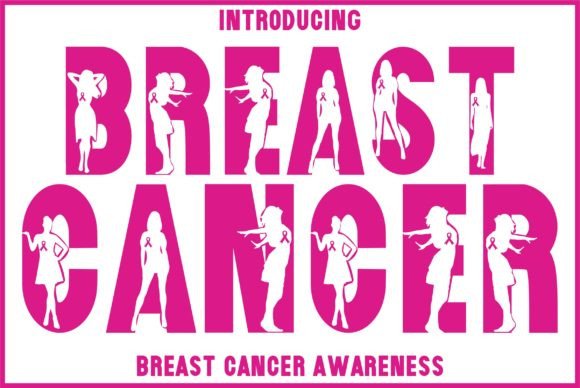
**Introducing Breast Cancer Font: The Empowering and Exclusive Font for a Meaningful Cause**
Immerse yourself in the realm of typography with Breast Cancer Font, an extraordinary decorative typeface that stands as a beacon of hope and awareness. Crafted with meticulous attention to detail by the renowned font artist Phongsakon Phonkhammak, this captivating font empowers you to make a heartfelt statement through your designs.
Breast Cancer Font is a testament to the strength and resilience of those affected by breast cancer. Its bold, thick lettering exudes a sense of determination and unwavering spirit. Each stroke and curve is a symbol of the indomitable human will that triumphs over adversity.
Whether you're creating materials for a breast cancer awareness campaign, designing a website dedicated to support groups, or simply seeking a font that conveys a message of hope, Breast Cancer Font is the perfect choice. Its versatility extends beyond breast cancer awareness, making it suitable for any project that seeks to inspire and empower.
By incorporating Breast Cancer Font into your designs, you not only add a touch of elegance and distinction but also contribute to a meaningful cause. It's a font that speaks volumes, raising awareness and sparking conversations about the importance of early detection and support.